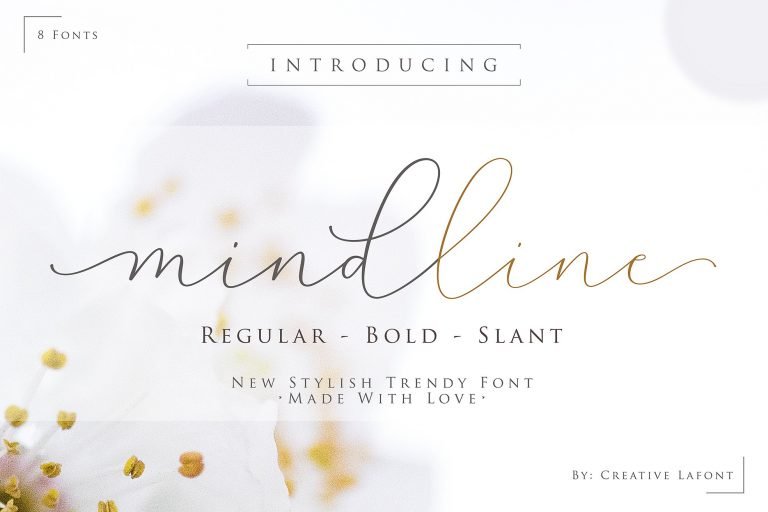
Mindline Script Font
This is a unique design that posseses elegancy and charm. Use it for your work, your customers will feel satisfied with what you have done. Introducing Mindline Font. Mindline is a unique blend of classic modern calligraphy font with contemporary, sophisticated accents. It is perfect for wedding, event, invitation, escort card, table number, header menus, display, logos, slider blog, custom address, stamps, packaging, greeting card, etc.